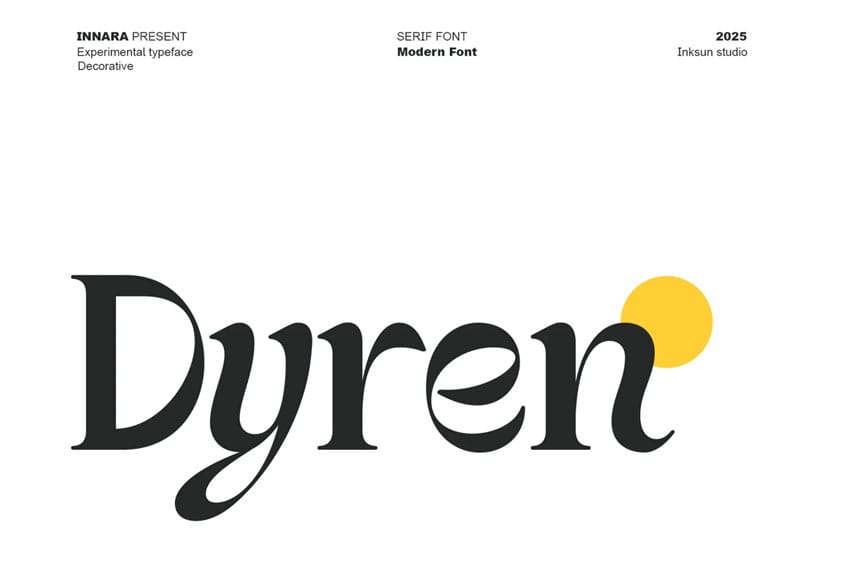
Dyren Font Decorative Serif Style: This font is classified as an experimental and decorative typeface. Its main characteristic is the presence of “serifs,” or small lines at the end of each character, which gives it a classic yet fashionable feel.
Strong Line Contrast: There is a striking difference in thickness between the thick vertical lines and the thinner horizontal or curved lines. This is a common characteristic of Modern Serif.
Organic and Curved Shapes: The letters, especially the ‘y,’ ‘r,’ and ‘n, have flowing and graceful curves, providing an artistic and elegant touch.
Visual Accent: The decorative element in the form of a yellow circle behind the ‘n,’ indicates that this font is well-suited for display or branding purposes.